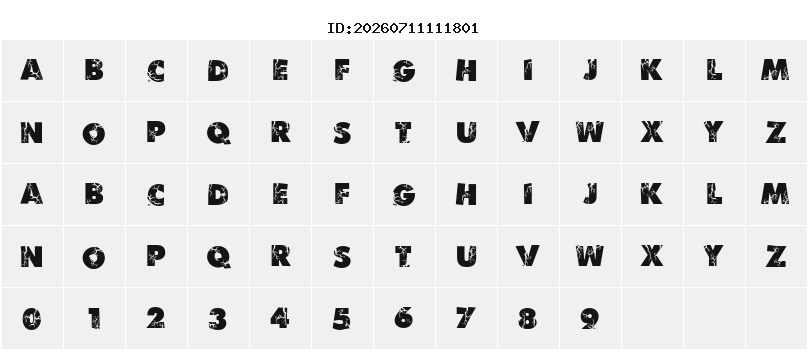
• Font Name: m_Ben Krush
• Full Font Name: m_Ben Krush
About m_Ben Krush.ttf
m_Ben Krush.ttf is a modern, elegant sans-serif font designed for ultimate readability and visual harmony. Perfect for branding, headlines, web design, and print materials.